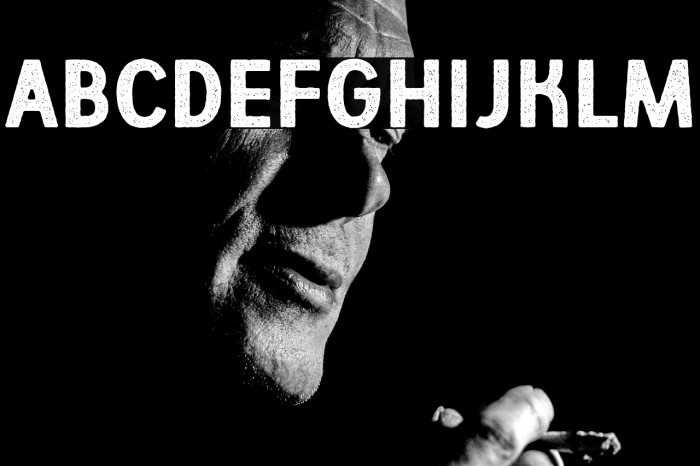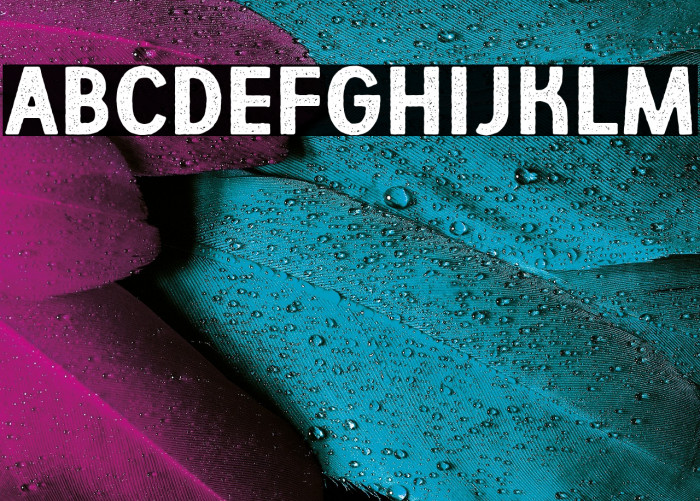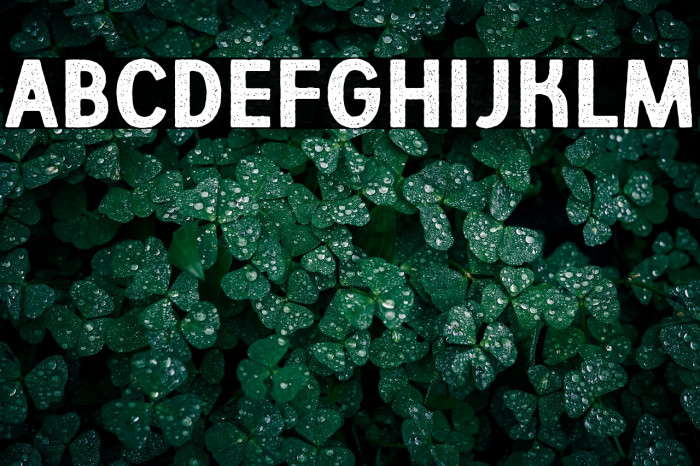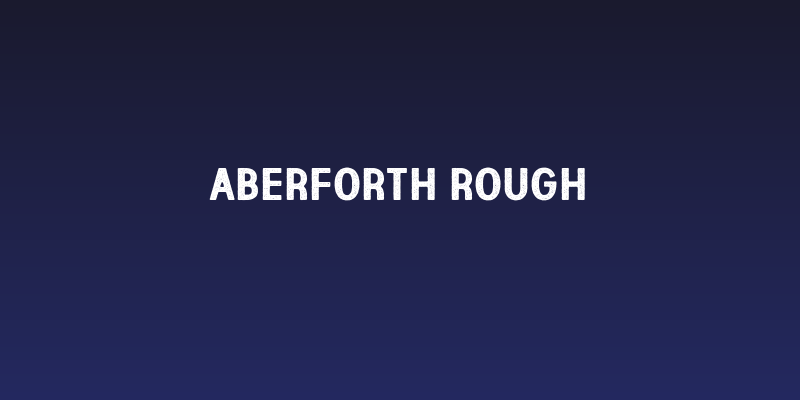
Aberforth Rough Font
Aberforth Rough Description
This font features a bold, textured style with a rough, distressed appearance, giving it a vintage and handcrafted feel. The characters are thick and sturdy, with a slightly uneven texture that adds a rustic charm. The uppercase and lowercase letters maintain a consistent weight, while the numbers and special characters complement the overall aesthetic. The font's unique texture makes it stand out, ideal for projects that require a bold statement or an artistic touch.
Overall StyleVintage
Proposed ProjectsPerfect for branding, posters, packaging, and any design that requires a bold, artistic touch.